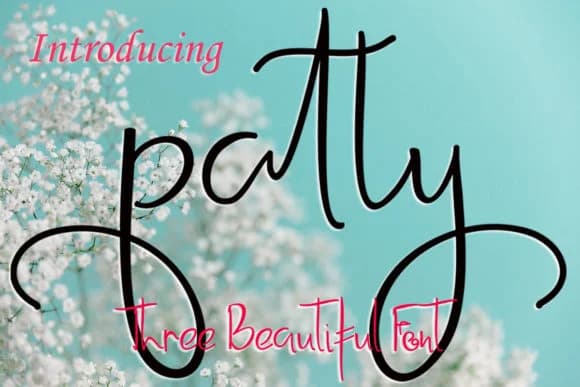
1 / 6About Patty Font by FontCloud Font
Patty Font by FontCloud is a contemporary handwritten script that captures organic, calligraphic letterforms with authentic natural character. The typeface translates the flowing elegance of hand-lettering into a digital format, making it ideal for creative projects that demand personality and genuine warmth. Whether you're designing wedding invitation suites, creating personalized thank-you cards, crafting product labels for artisan goods, or developing sophisticated boutique packaging designs, Patty delivers the authentic script aesthetic that modern design calls for. The font includes three distinct variations, Regular, Merger, and Script, giving you creative flexibility to layer different weights and styles within a single project. This multi-version approach opens creative possibilities for wedding monograms, hand-lettered social media graphics, custom invitation sets, and personalized stationery suites. Each version maintains the distinctive calligraphic quality that defines Patty while offering different visual emphasis depending on your specific design needs. The overall versatility of Patty makes it equally at home in editorial layouts, custom invitations, or branding work where script typography strengthens overall brand identity. Its natural flow works beautifully for both headline and body applications, depending on which version you choose to implement. Discover authentic handwritten elegance for your next design project and find Patty Font on Creative Fabrica.
- Elegant, Flowing, Patty Regular
Patty Font by FontCloud Font is a script font that shines as a display or heading face. Pair it with a clean sans-serif or serif font for body text β the contrast creates a clear hierarchy while the two styles stay balanced and easy to read.
Patty Font by FontCloud Font